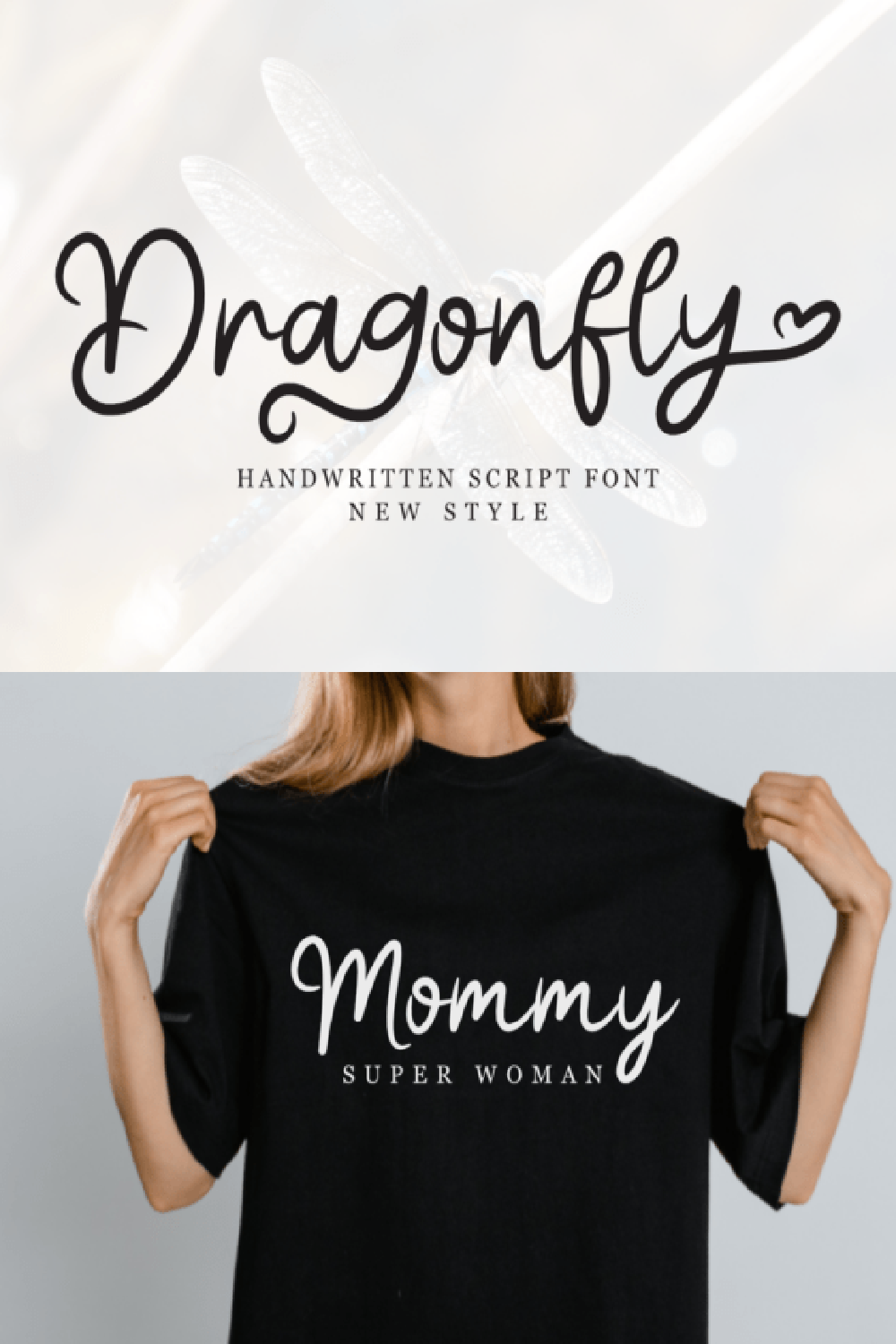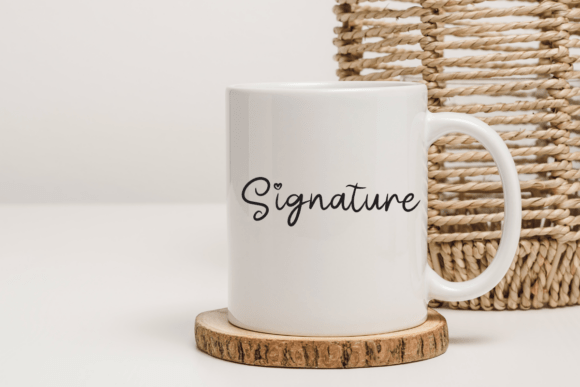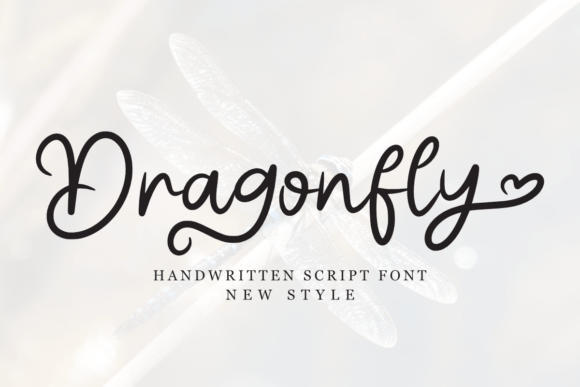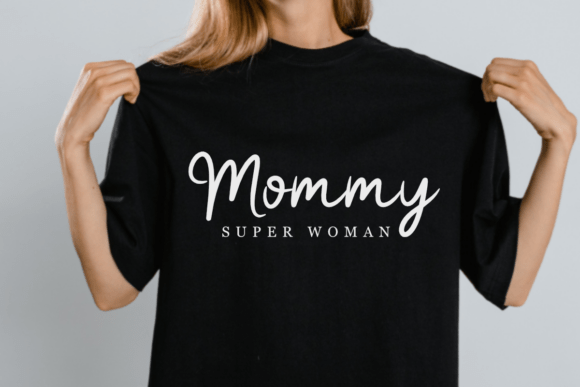
Dragonfly Font: A Cute Handwritten Script for Cricut & DIY Projects
About the Dragonfly Font
Elevate your designs with Dragonfly Font, a font that combines sophistication with readability. Dragonfly is a festive and fun handwritten font, perfect for adding a touch of holiday cheer to your designs. With its playful curves and bold lines, this font is ideal for creating cards, invitations, and other holiday-themed graphics.
Dragonfly’s playful energy makes it a strong choice for branding projects targeting younger demographics or products with a lighthearted feel, such as children’s books, confectionery packaging, or event invitations. It excels in headlines, short quotes, and logos, but its informal nature makes it less suitable for body text or lengthy paragraphs. Avoid using it in user interfaces or situations requiring high readability.
Pairing Dragonfly with a clean sans-serif like Open Sans for body copy creates a balanced contrast, while a classic serif like Garamond offers a sophisticated counterpoint for more formal applications. For a playful pairing that maintains energy, consider a geometric sans-serif such as Futura.
The font’s overall personality is best described as cheerful and friendly, with a touch of whimsy. Its bold strokes ensure high visibility, making it suitable for eye-catching designs where impact is key.
Dragonfly Font Usage Examples
Dragonfly Font Example